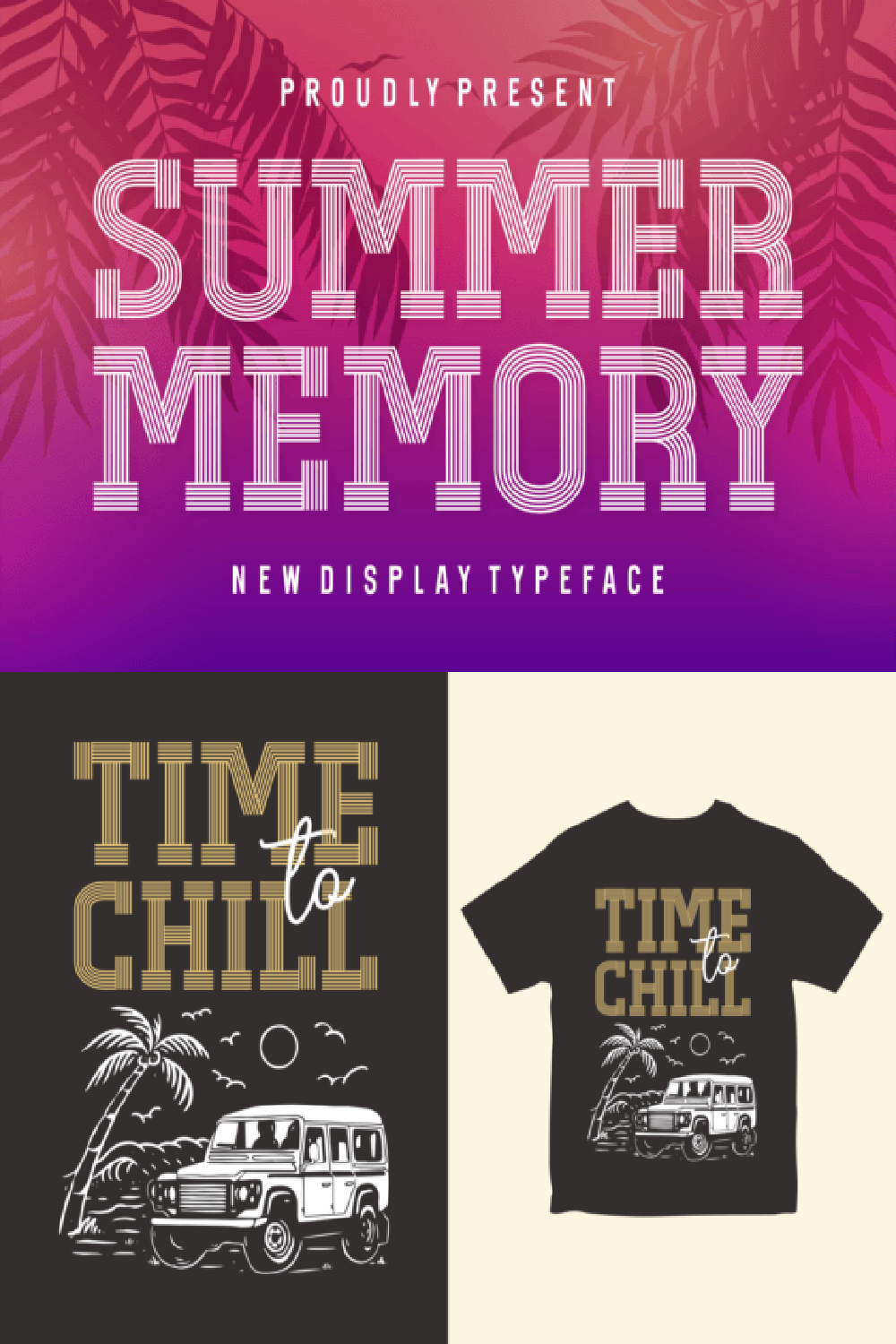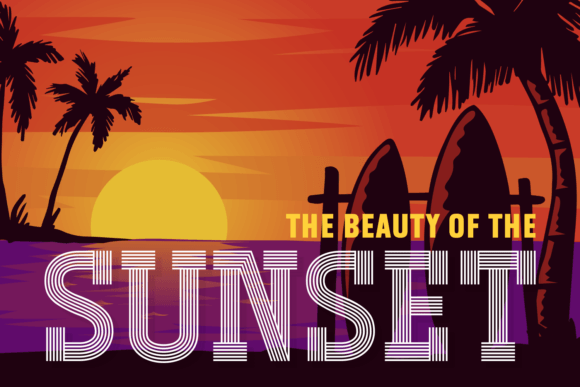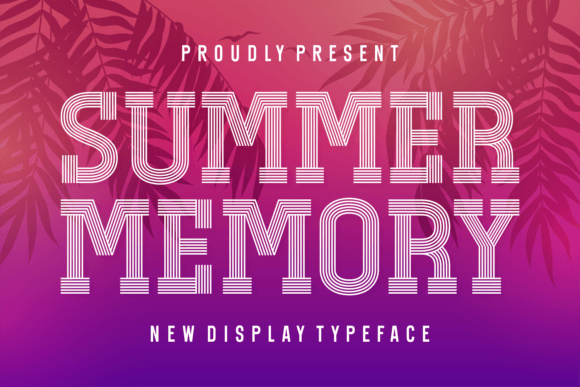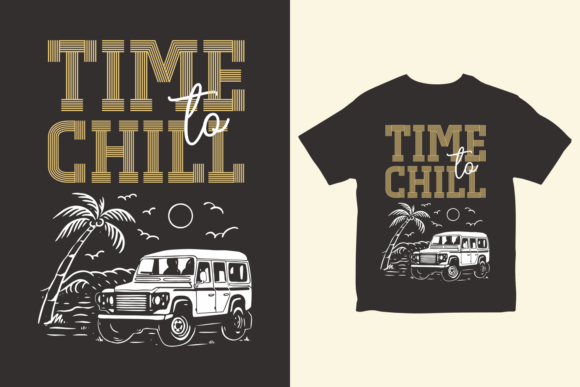
Summer Memory Font: A Playful Display Font for Cricut & DIY
About the Summer Memory Font
From logos to headlines, the Summer Memory Font is the perfect choice for making a lasting impression. Discover “Summer Memory,” a vibrant and playful font family that breathes life into your designs. Immerse yourself in its multi-line structure, perfect for capturing the imagination of children, or conveying the warmth between couples. Perfect for creating beguiling Cricut designs, this font exudes a cuteness that is hard to ignore. It’s not just a font; it’s a tool for expressing love, fun and style all at once. Unleash its magic on Father’s and Mother’s Day greetings, lending a personal touch to your heartfelt messages